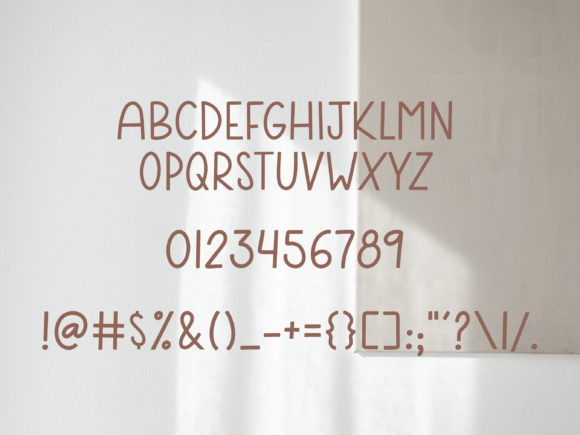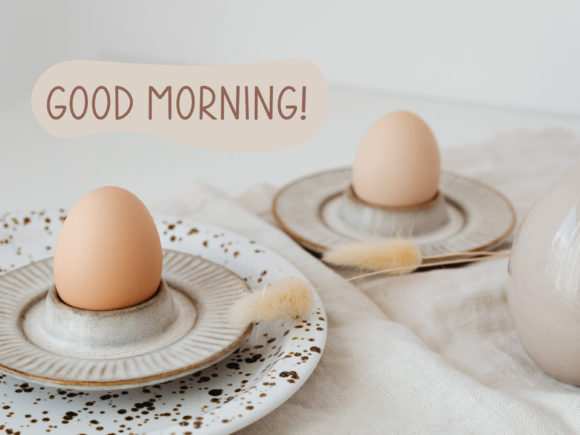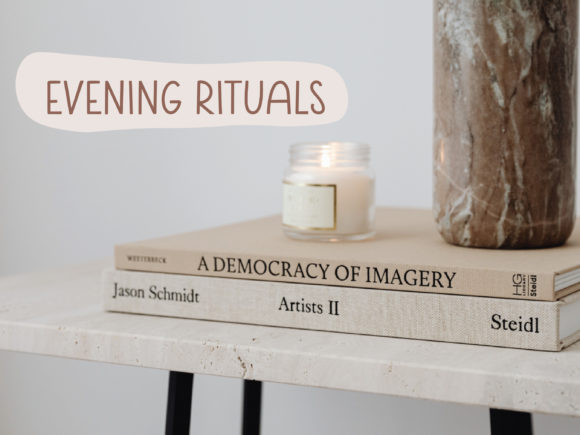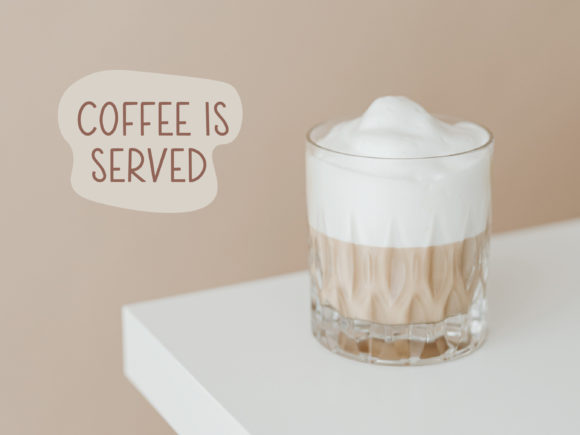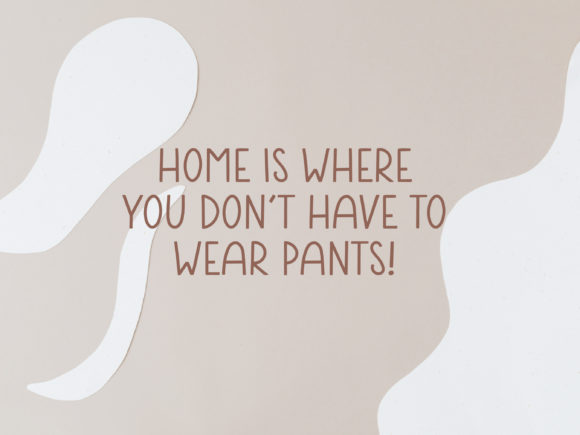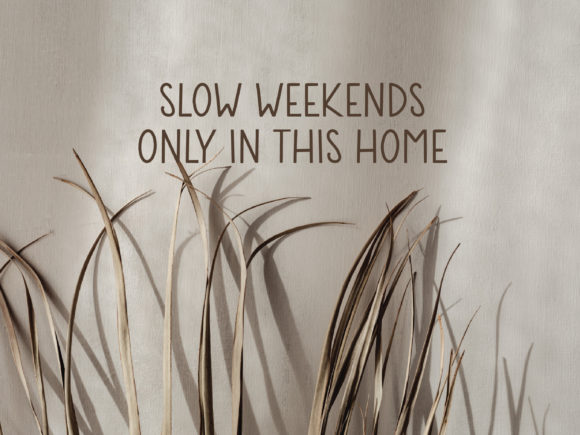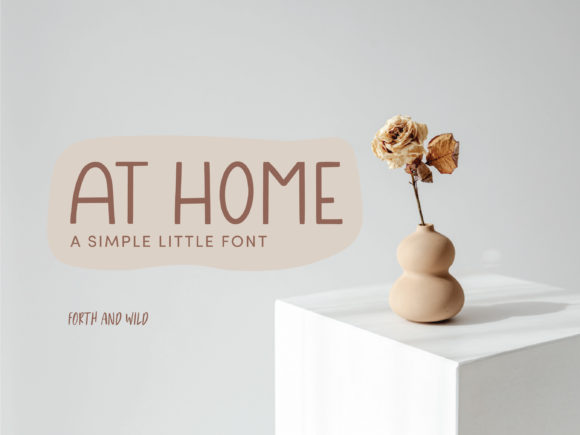
Introducing At Home Font: The Perfect Handwritten Font for Your Creative Projects
Are you a designer, crafter, or DIY enthusiast looking for a font that can add a touch of joy and playfulness to your creations? Look no further than At Home Font, a clean, simple, and neat handwritten font that’s perfect for a wide range of projects. In this article, we’ll take a closer look at the features and benefits of At Home Font, and explore how you can use it to elevate your designs and bring a smile to your audience’s faces.
What is At Home Font?
At Home Font is a beautiful handwritten font that’s designed to be versatile and easy to use. Its clean and simple lines make it perfect for a variety of applications, from cartoon-related designs and children’s games to quotes, titles, brand names, book covers, posters, and more. Whether you’re creating something for kids or adults, At Home Font is a great choice for adding a touch of personality and whimsy to your designs.
Key Features of At Home Font
• Clean and Simple Design: At Home Font features clean and simple lines that make it easy to read and versatile for a wide range of applications.
• Handwritten Style: The font has a warm and friendly handwritten style that’s perfect for adding a personal touch to your designs.
• Neat and Organized: At Home Font is carefully crafted to be neat and organized, making it perfect for titles, headings, and body text.
• Playful and Fun: The font has a playful and fun vibe that’s perfect for designs that require a touch of joy and whimsy.
Use Cases for At Home Font
At Home Font is a versatile font that can be used for a wide range of projects, including:
• Cartoon-Related Designs: The font’s playful and fun style makes it perfect for cartoon-related designs, such as character names, titles, and dialogue.
• Children’s Games and Activities: At Home Font is a great choice for children’s games, activity sheets, and educational materials.
• Quotes and Titles: The font’s clean and simple design makes it perfect for quotes, titles, and headings.
• Brand Names and Logos: At Home Font can be used to create unique and memorable brand names and logos.
• Book Covers and Posters: The font’s neat and organized style makes it perfect for book covers, posters, and other print materials.
Benefits of Using At Home Font
Using At Home Font in your designs can have a number of benefits, including:
• Unique and Memorable Designs: At Home Font can help you create unique and memorable designs that stand out from the crowd.
• Emotional Connection: The font’s playful and fun style can help you create an emotional connection with your audience.
• Versatility: At Home Font can be used for a wide range of projects, making it a great addition to your font library.
• Ease of Use: The font is easy to read and use, making it perfect for designers and crafters of all skill levels.
In conclusion, At Home Font is a beautiful and versatile handwritten font that’s perfect for a wide range of creative projects. Its clean and simple design, handwritten style, and playful vibe make it a great choice for designers, crafters, and DIY enthusiasts. Whether you’re creating something for kids or adults, At Home Font is a great addition to your font library. So why not give it a try and see how it can elevate your designs and bring a smile to your audience’s faces?